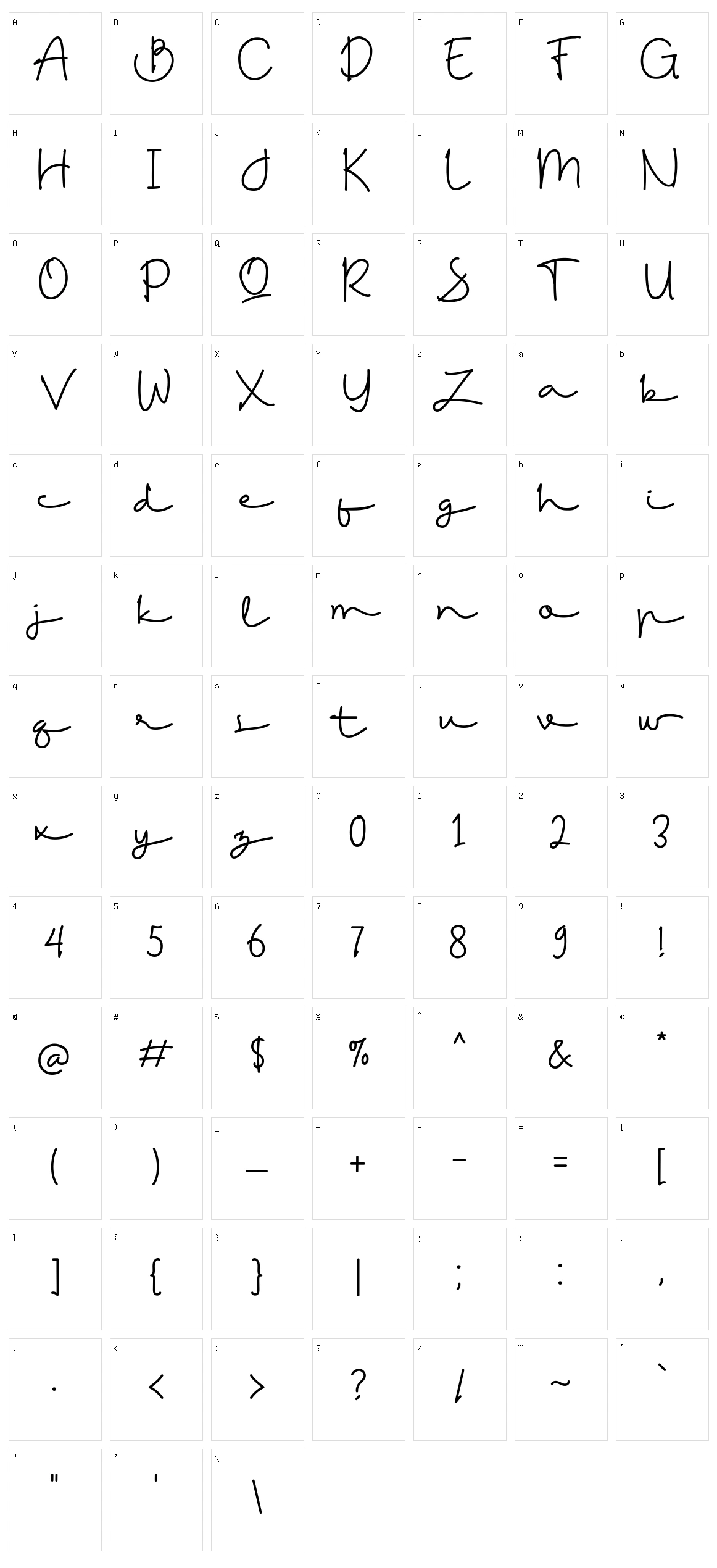
The free font Sampurasoons is carefully designed by Lemonthe, showcasing a thoughtful balance of creativity and usability and falls under the Script font style. When you download the ZIP file, it contains only 46.29 KB of font files, making it lightweight and quick to download. Please review the license details below to understand permitted usage and distribution rights. If license information is not available, we recommend using this font for personal projects only or contacting the author directly for commercial usage permissions.
Sampurasoons 2020 by Lemonthe